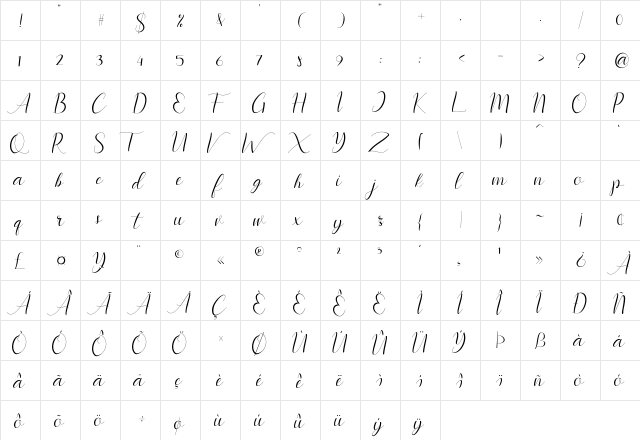
instastory script Regular
Design Context for instastory script Typeface
instastory script flows with the natural rhythm of handwritten lettering, making it ideal for designs that call for warmth and personal expression.